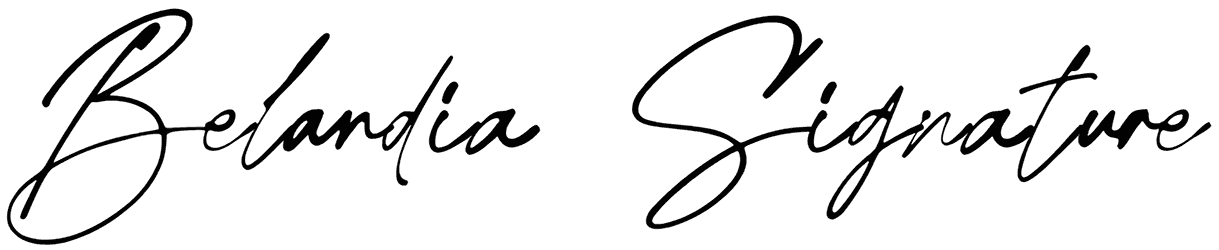
Belandia Signature Font
Belandia Signature font displays a hand-written and script font with a tricky-to-read feature. This girlish font shows us how attractive a professional design can be in future luxury projects, such as the logo design of…
Belandia Signature font displays a hand-written and script font with a tricky-to-read feature. This girlish font shows us how attractive a professional design can be in future luxury projects, such as the logo design of watch brands, jewels, and perfume shops. To get your hands on more valuable fonts like this one, you can visit our ever-growing inventory and enjoy.